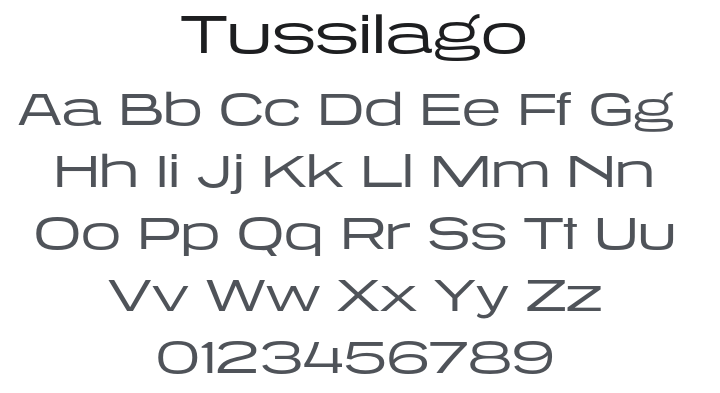
Tussilago Font Family
About Tussilago
Tussilago is a wide sans-serif typeface with one foot in the mid-twentieth century and the other planted firmly in the present. Its extended letterforms recall the confident proportions of vintage display faces, but subtle detailing and modern spacing make it ready for contemporary work.